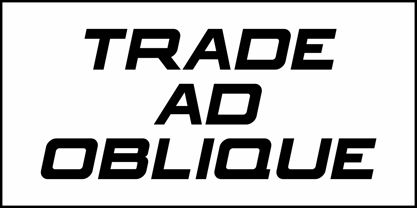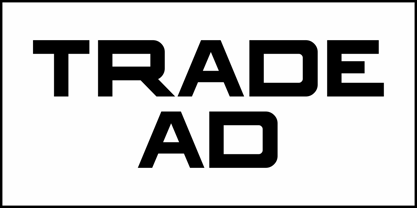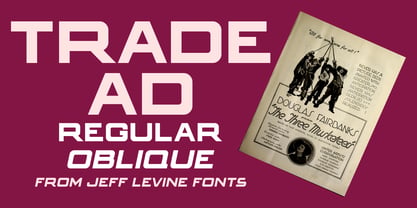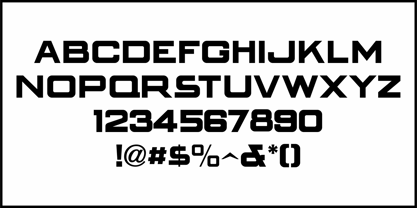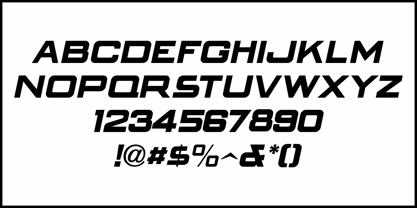
Trade Ad JNL
by Jeff Levine
The Trade Ad JNL Font Family was designed by Jeff Levine and published by Jeff Levine. Trade Ad JNL contains 2 styles and family package options.
Bold hand lettering with rounded corners and varying character widths was found within the World Film Corporation ad in the July 7, 1915 issue of Motion Picture News.
The overall design of the lettering foretells future type styles like Eurostyle and Microgramma, but also shows a touch of what would become the futuristic/techno style of the late 1970s and early 1980s.
This is now available as Trade Ad JNL in both regular and oblique versions.